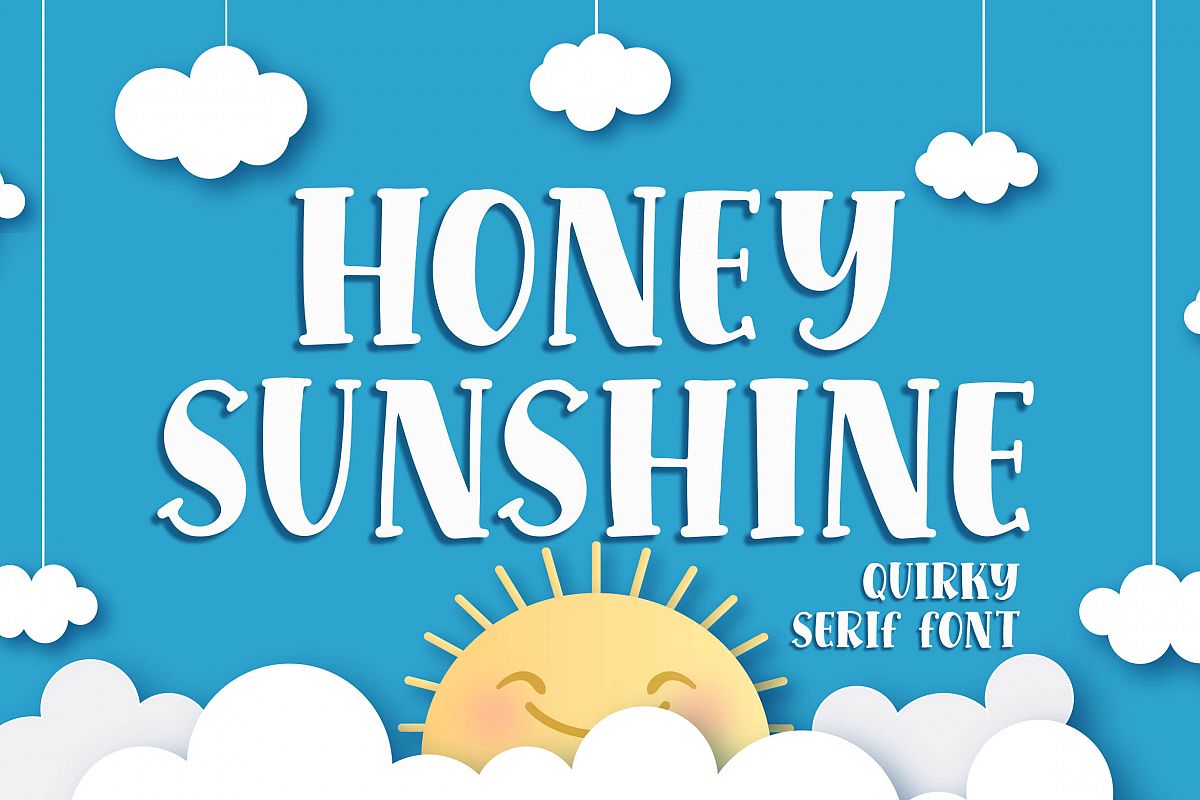
Introducing of our new product the name is Honey Sunshine a Quirky Serif Font. Honey Sunshine very good for crafting, kids poster, wedding, promotion poster, cartoon, comic etc